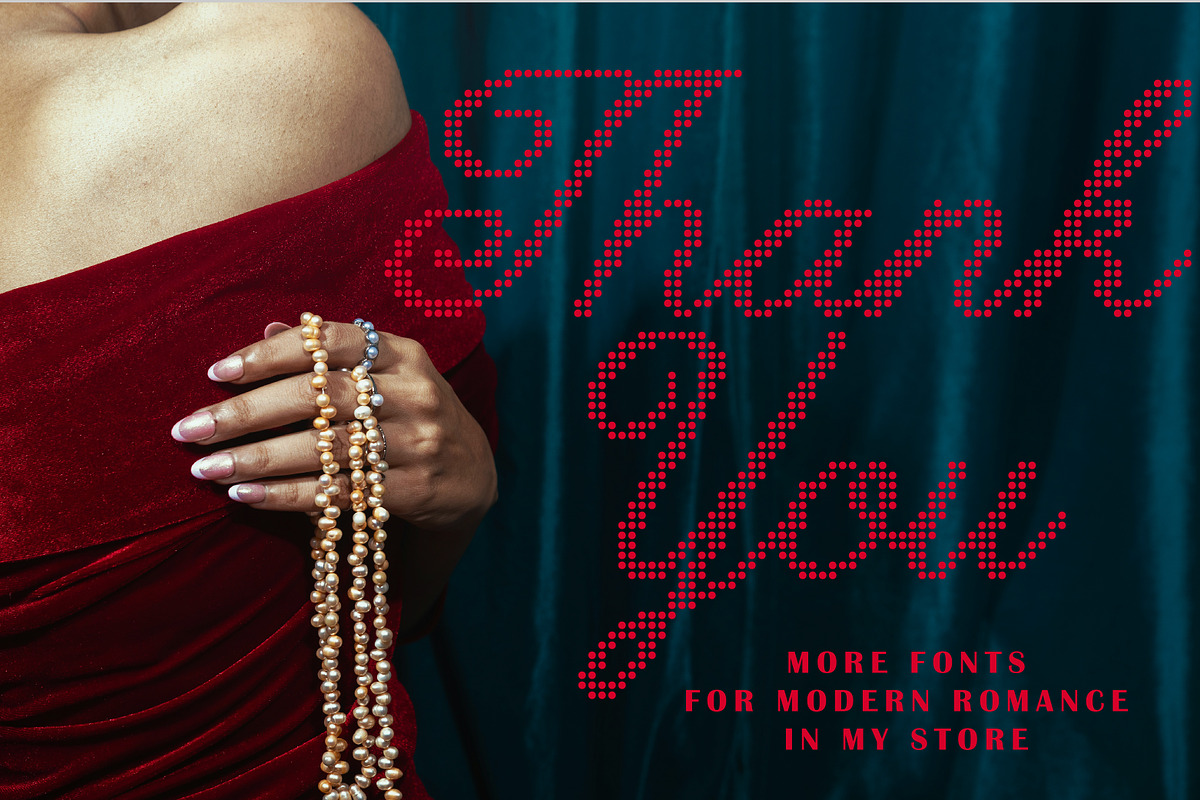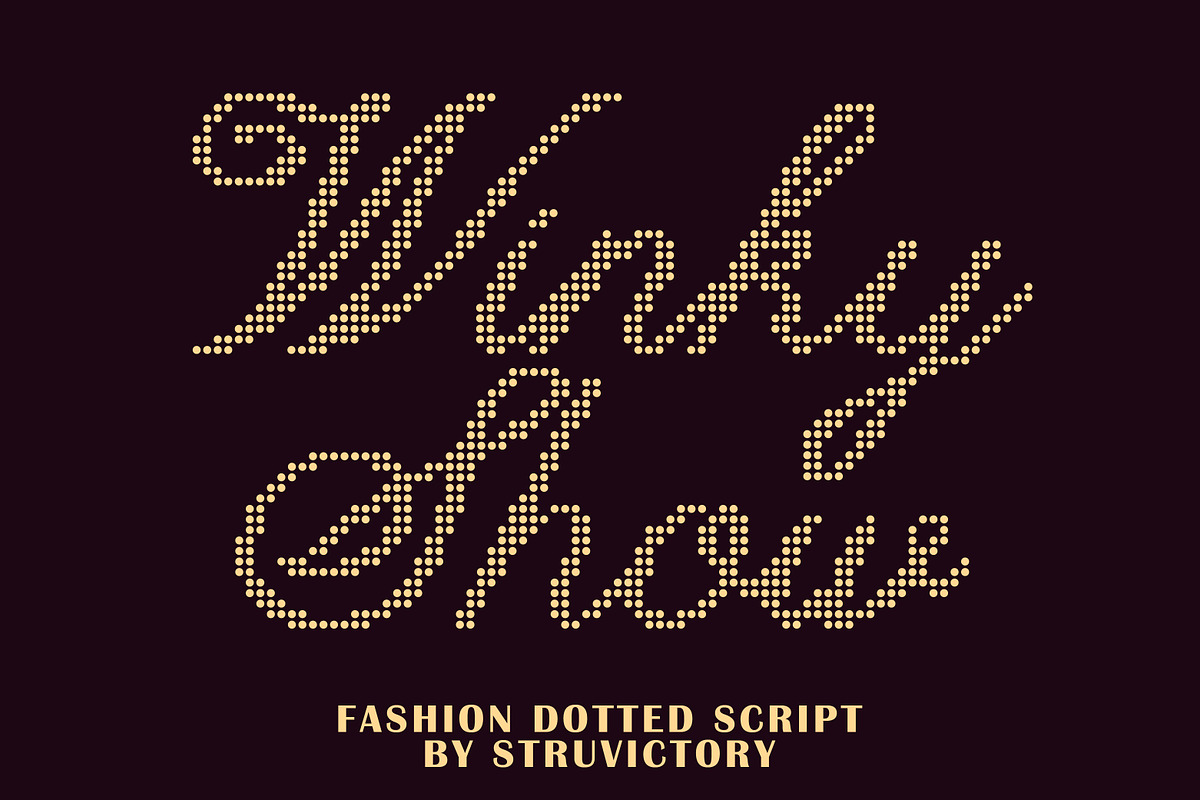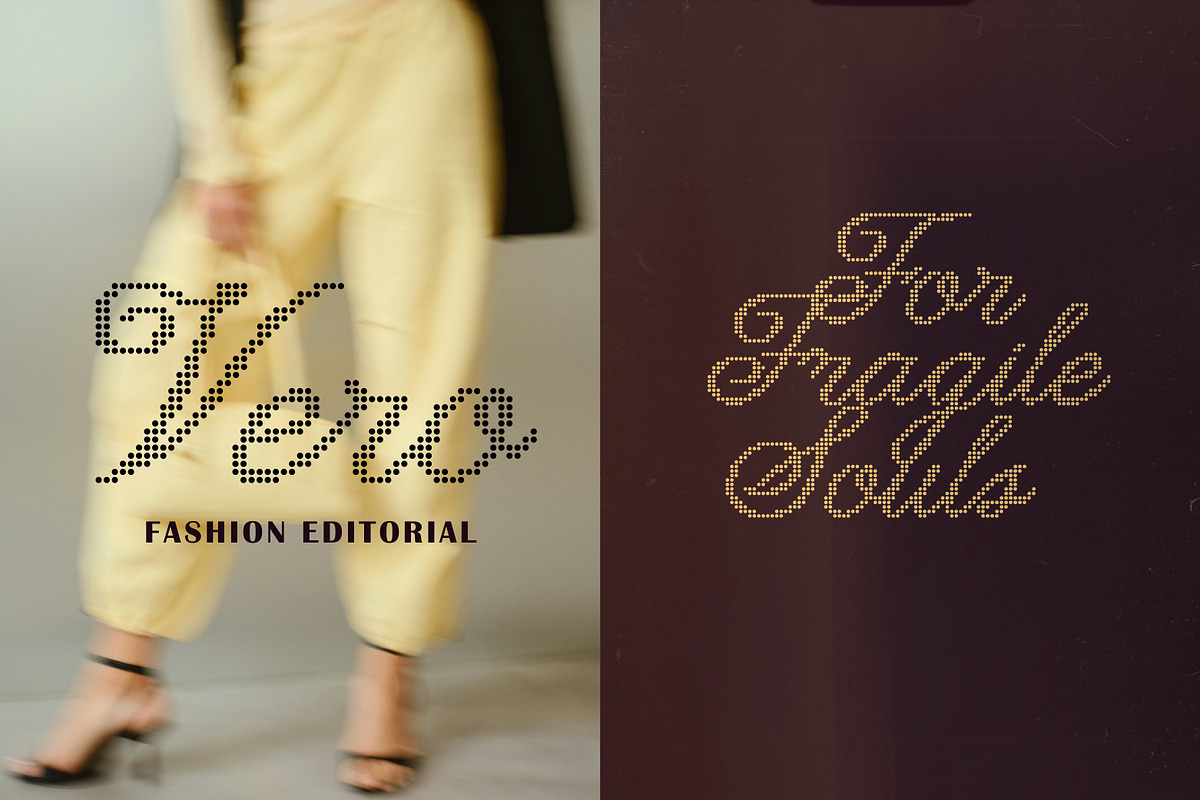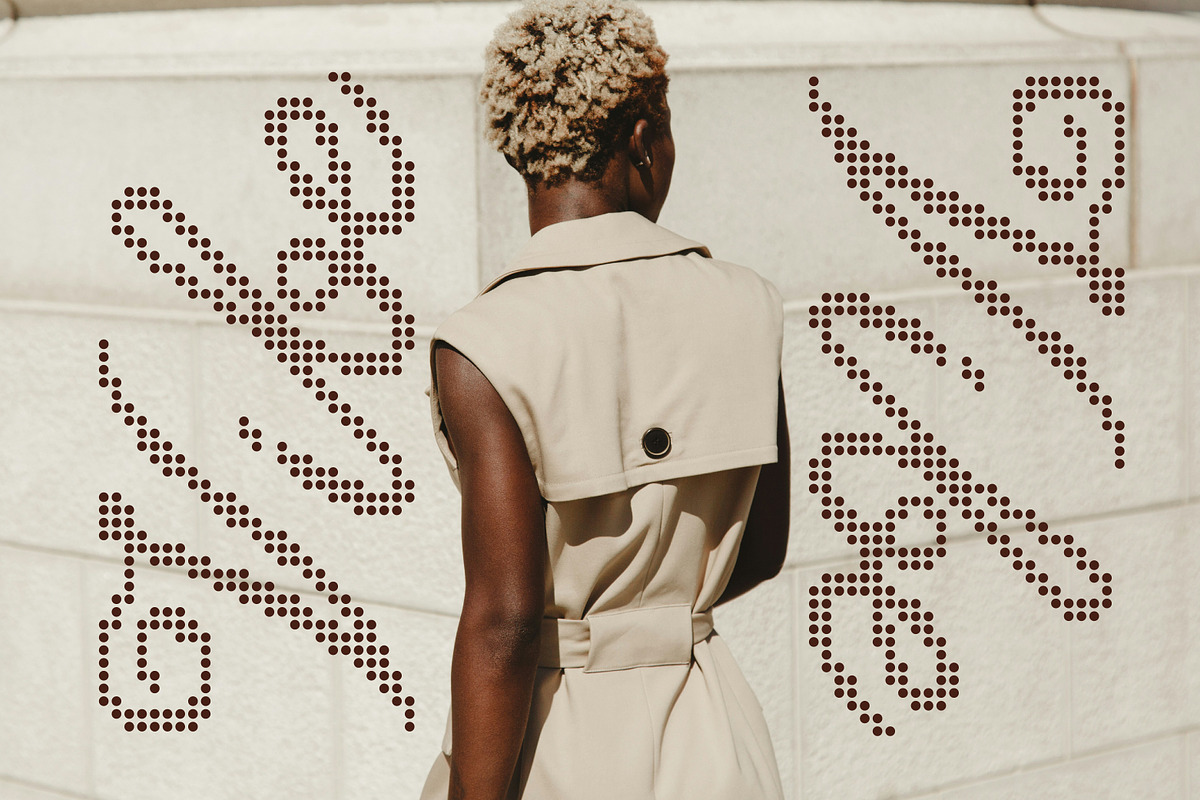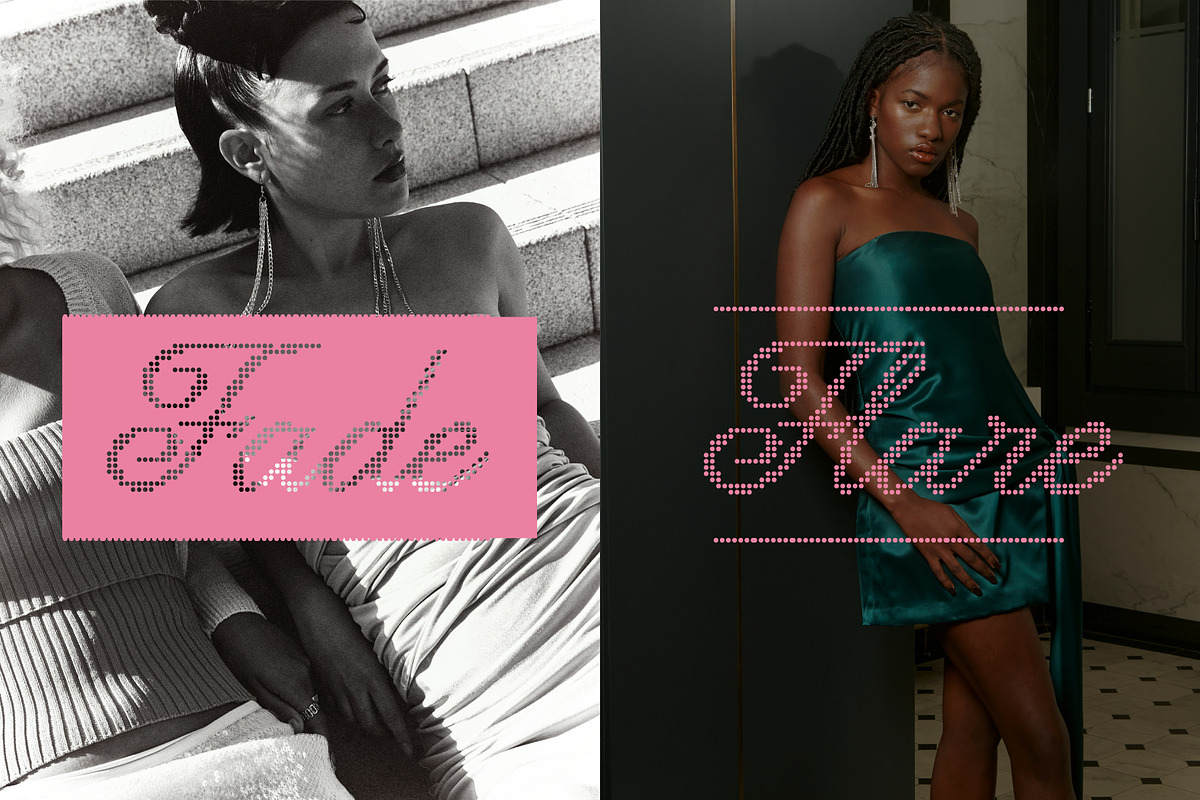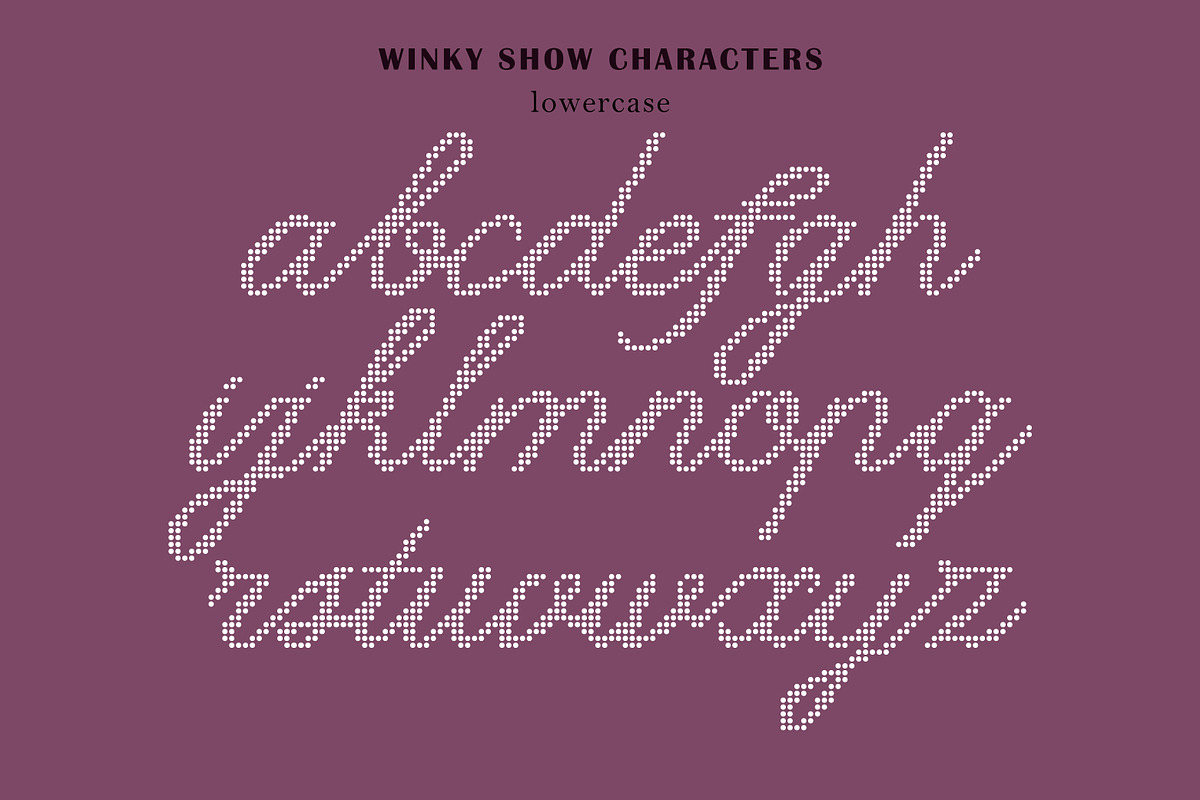
Winky Show Dotted Art Fashion Script
Winky Show is a modern dotted script typeface that blends handwritten elegance with digital precision. Built entirely from rounded dots, it creates a soft, rhythmic flow that feels light, expressive and fashion-forward. The font is designed for display use - perfect for branding, editorials, posters, packaging, social media and visual storytelling. With smooth connections, balanced proportions and a distinctive dotted structure, Winky Show adds subtle drama and refined character to any design while remaining clean and readable at large sizes.